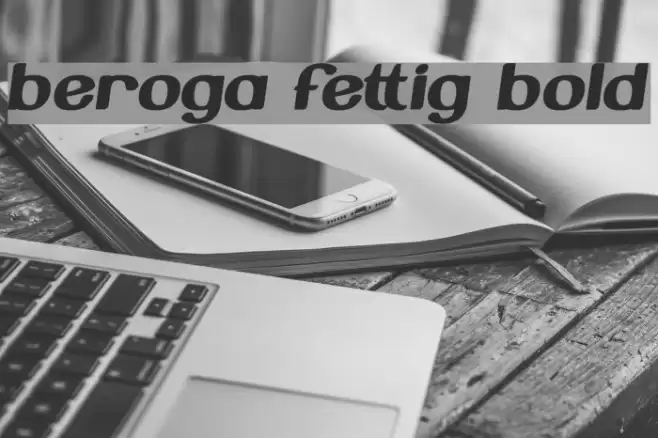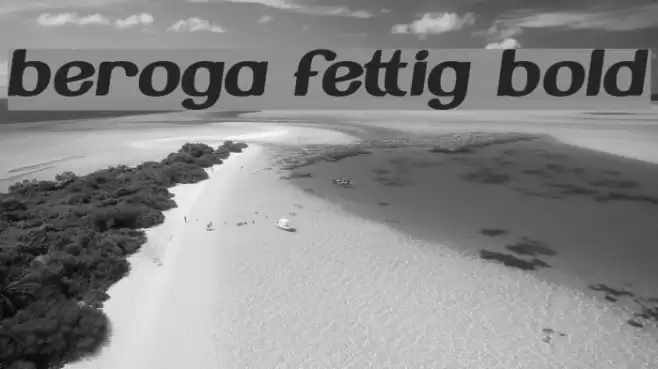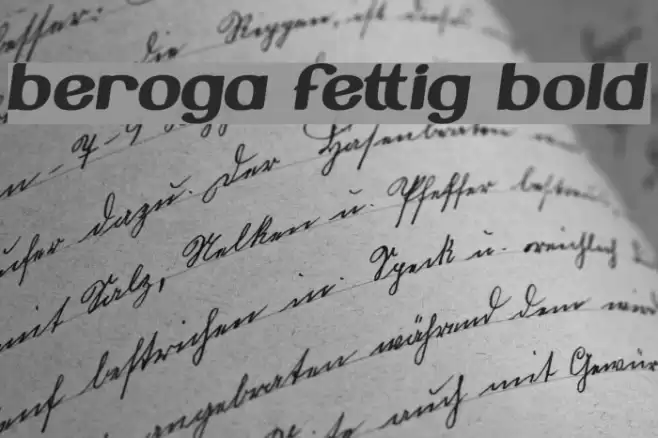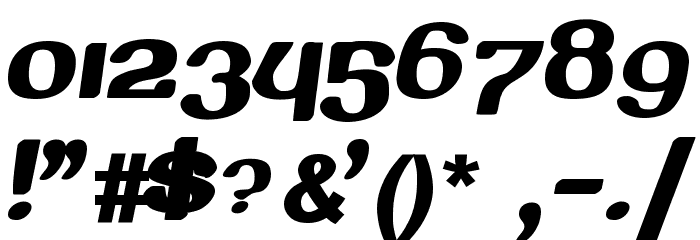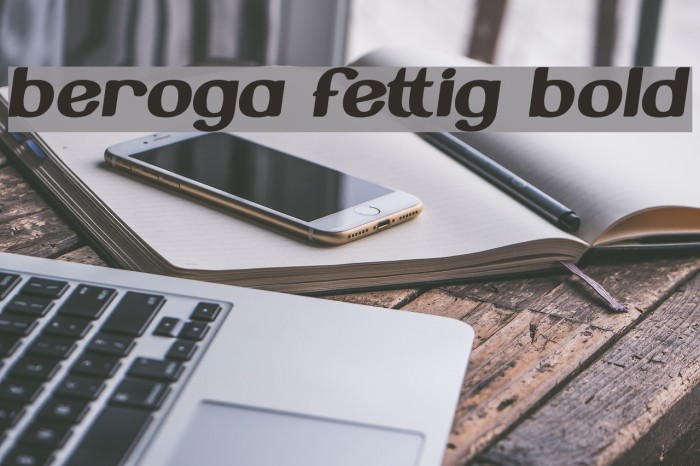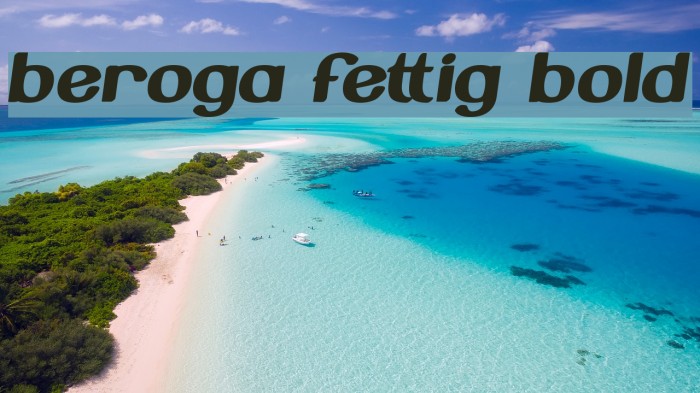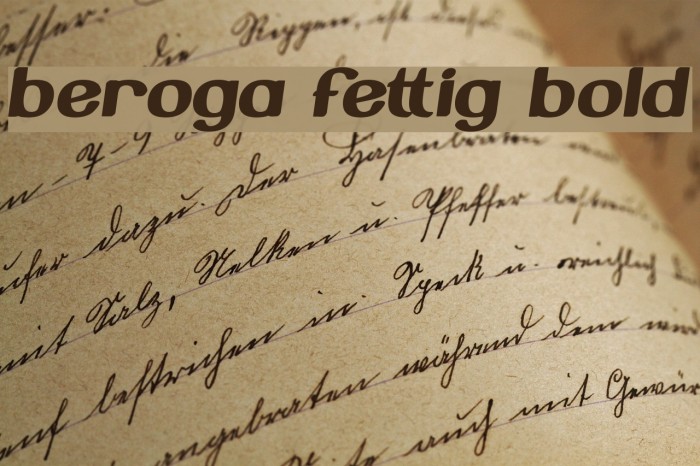
Beroga Fettig Bold Font
Beroga Fettig Bold Description
This font features a bold and dynamic style with a slight slant, giving it an energetic and modern appearance. The characters are rounded with smooth curves, creating a friendly and approachable look. The bold weight enhances its visibility, making it suitable for attention-grabbing designs. The lowercase letters maintain a consistent height, while the uppercase letters are slightly taller, providing a balanced contrast. The numerals are clear and distinct, ensuring readability. Special characters are well-integrated, maintaining the overall aesthetic of the font.
A bold, dynamic font with rounded, smooth curves and a slight slant from Uncategorized fonts.
- Proposed Projects: Ideal for branding, advertising, posters, and headlines where a bold and modern look is desired.